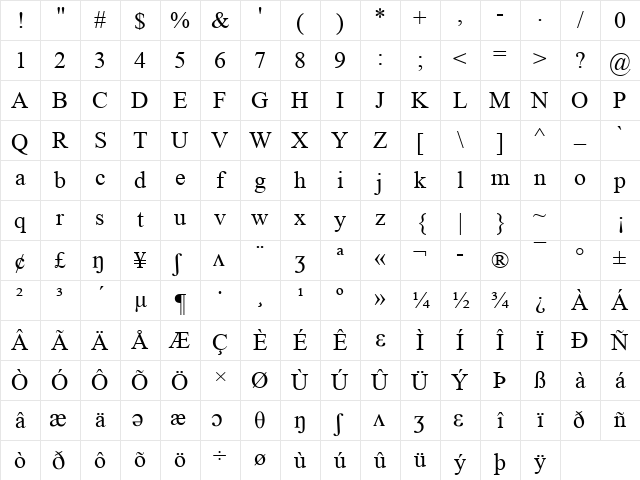
Complete AW Times New Roman Regular glyph index. Displaying only characters natively supported by AW Times New Roman Regular font.
AW Times New Roman is a composed and adaptable typeface that performs quietly and consistently across a wide range of design contexts.
Pro Tip: Use AW Times New Roman in both headline and body roles to test its range before committing to a single application.